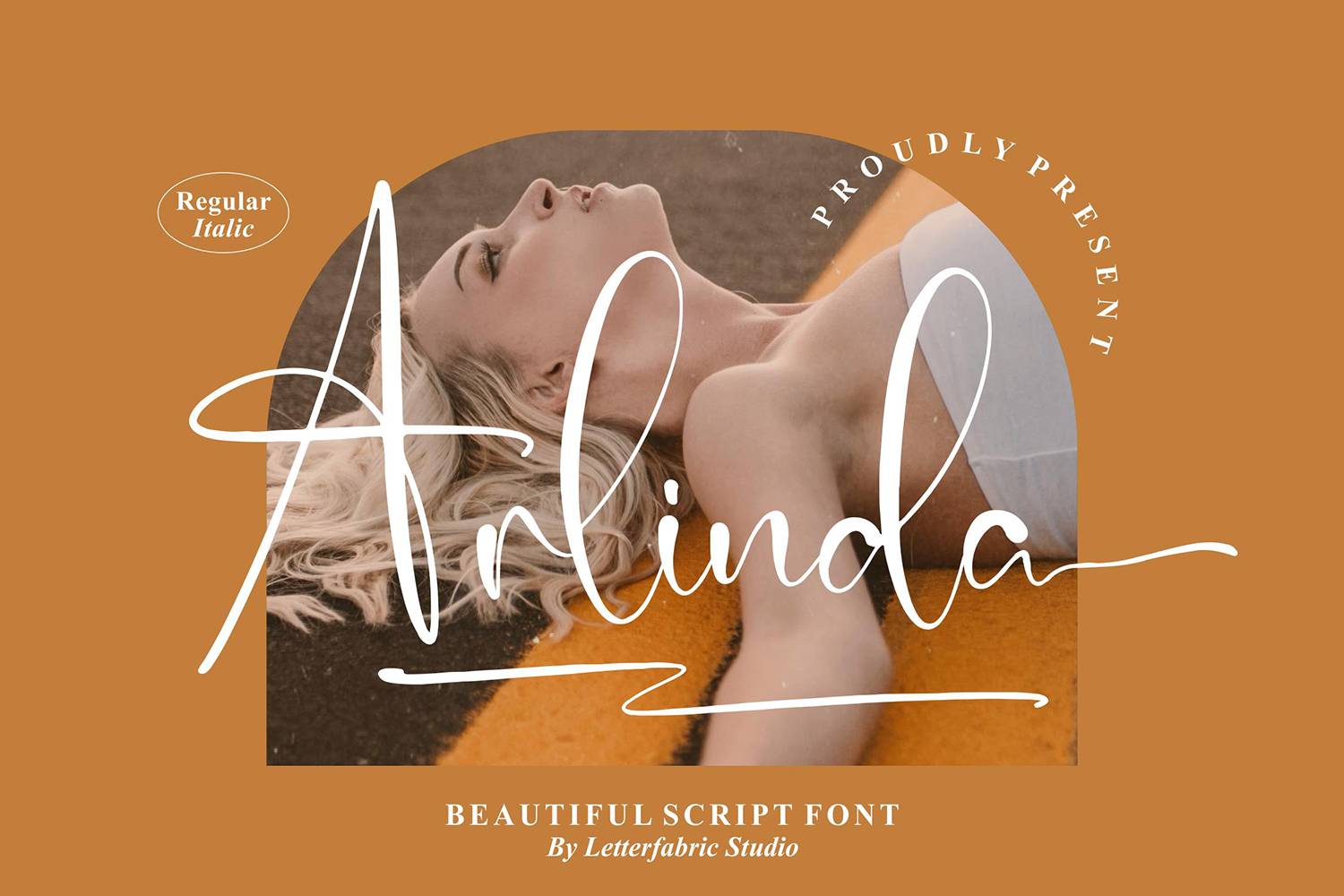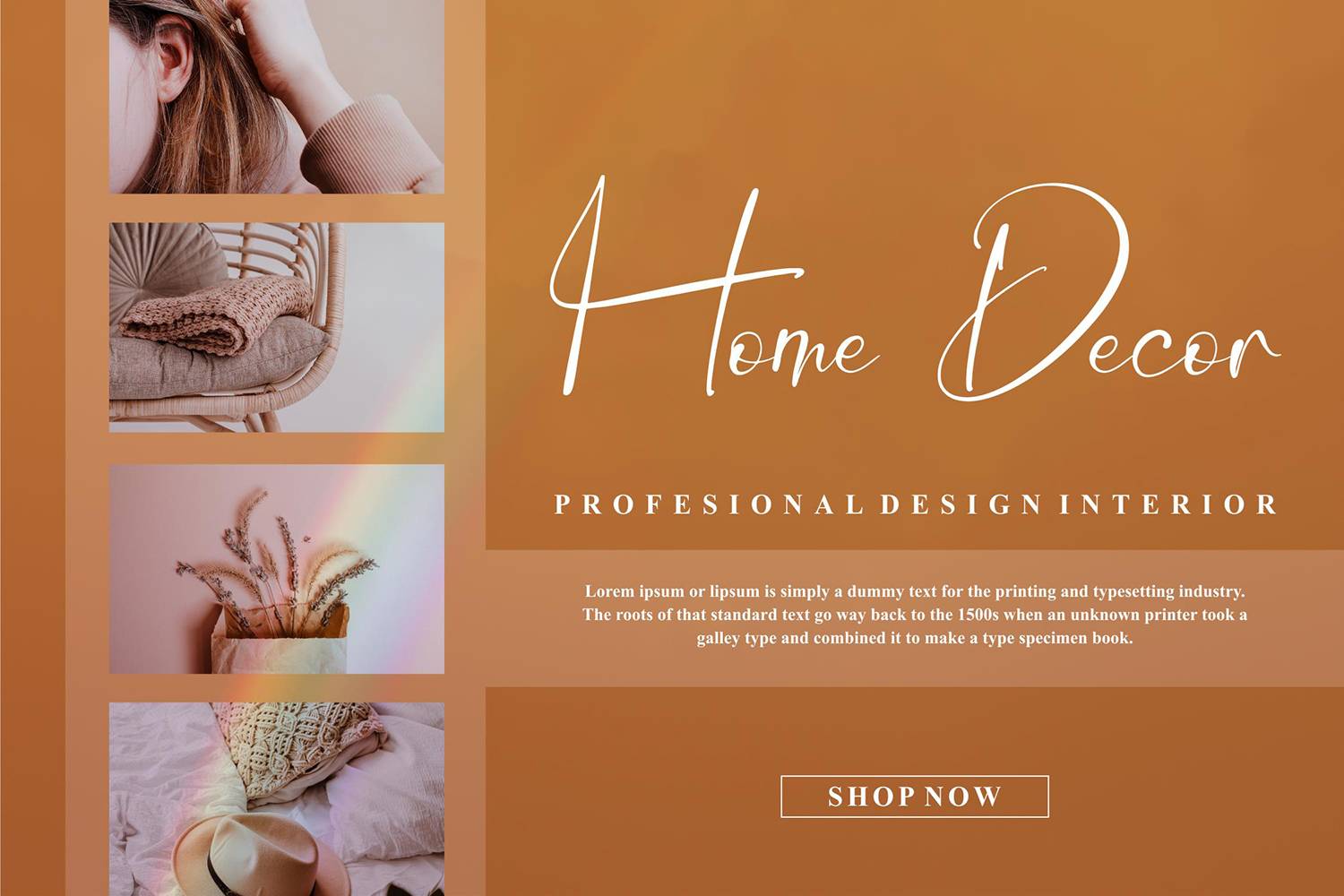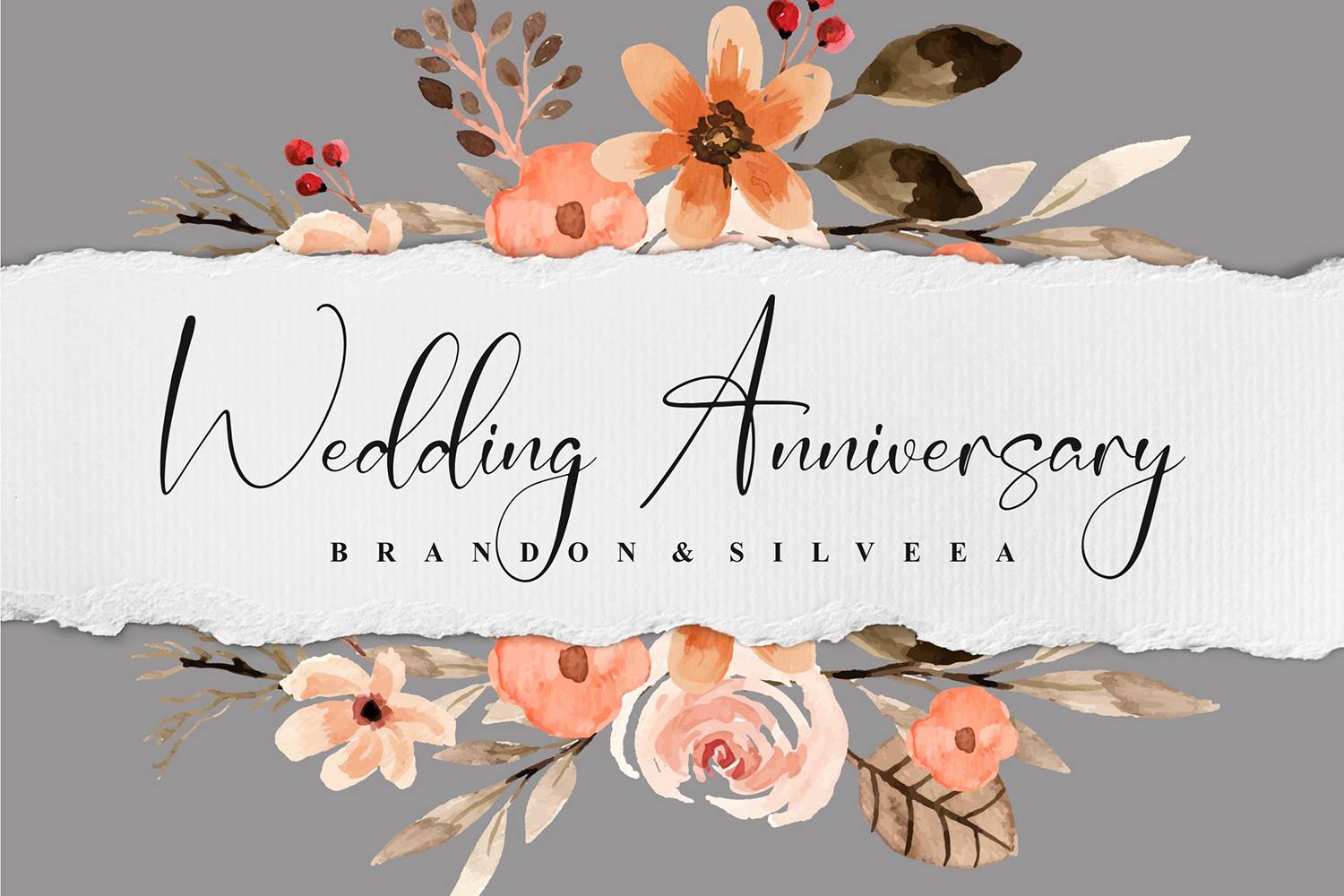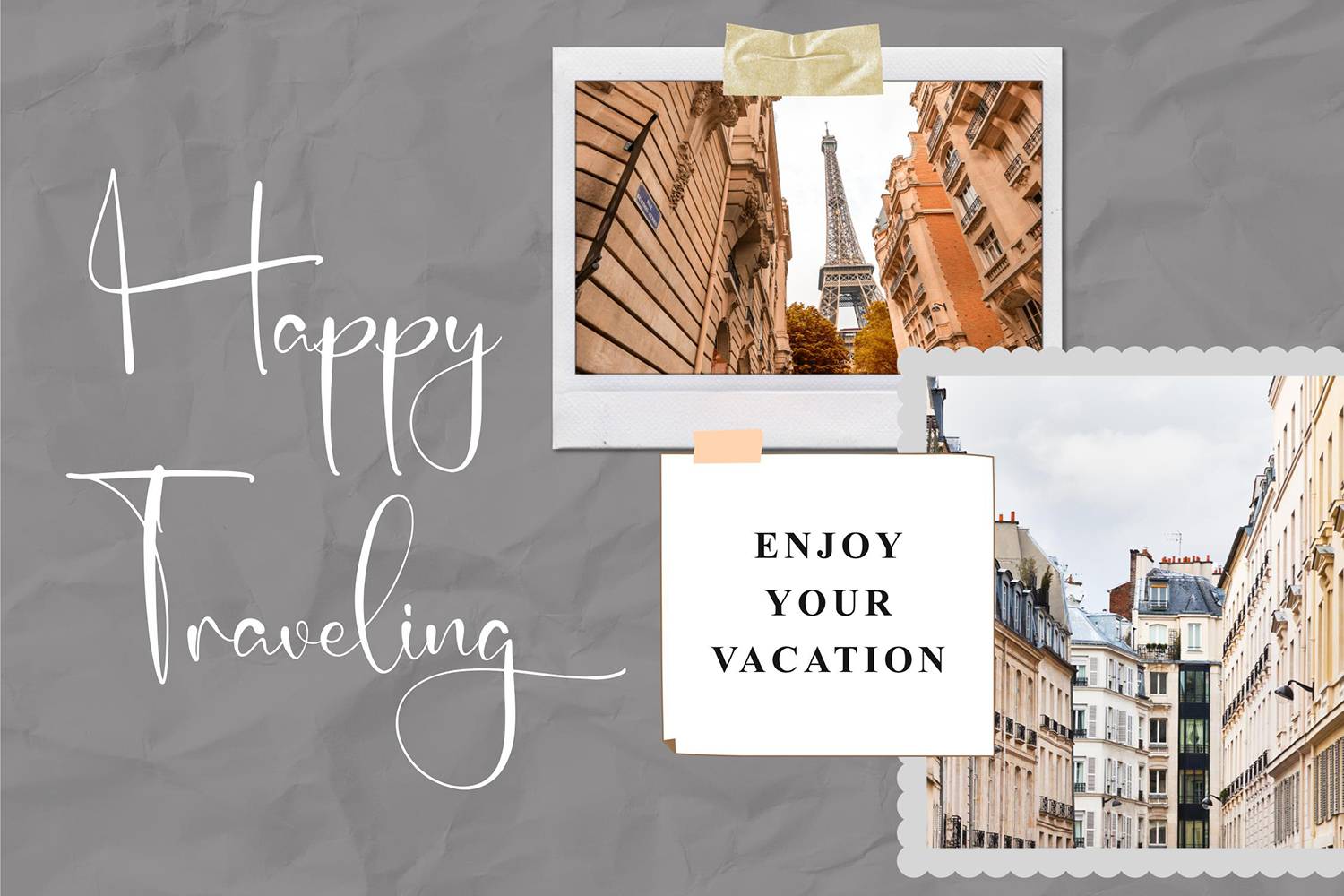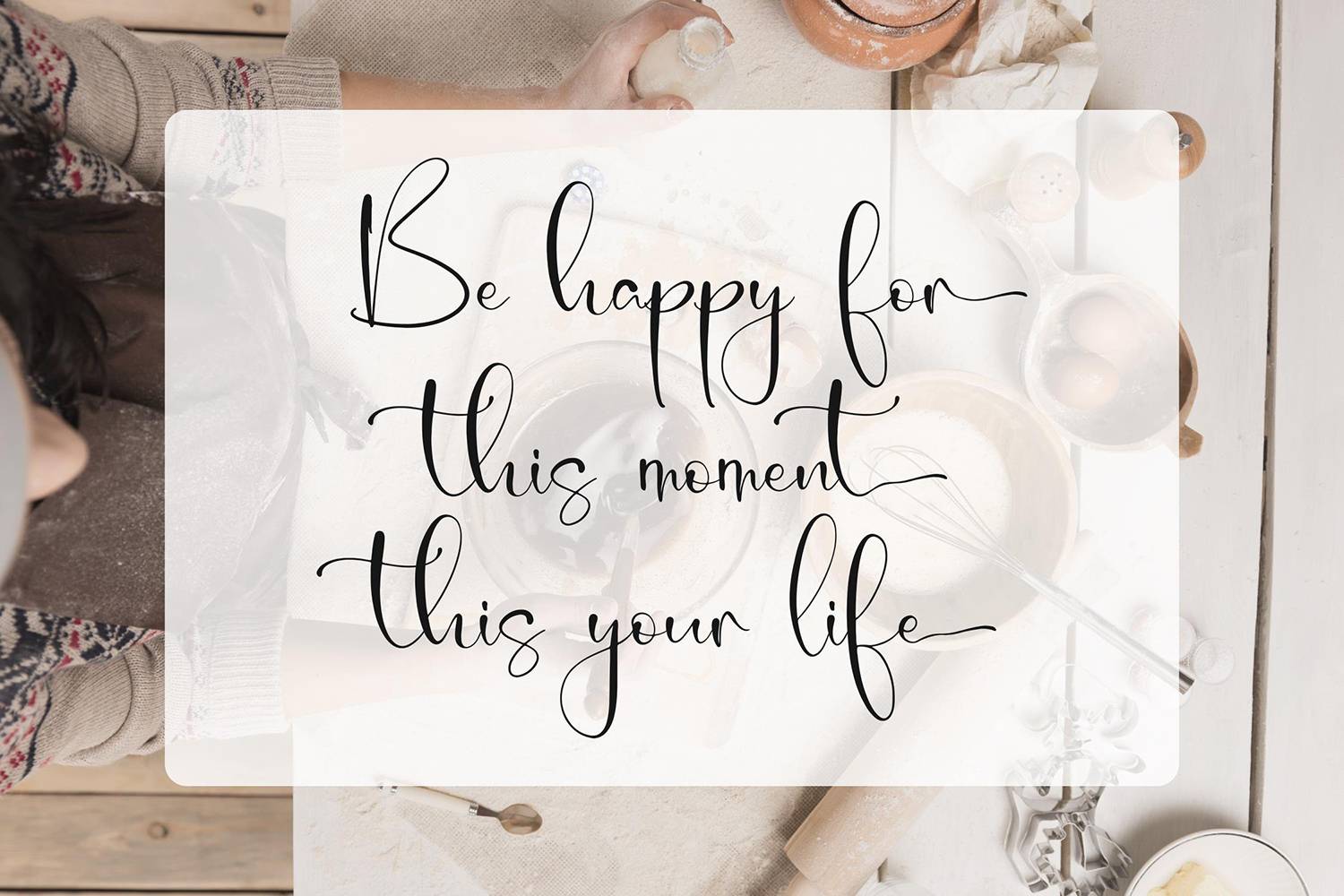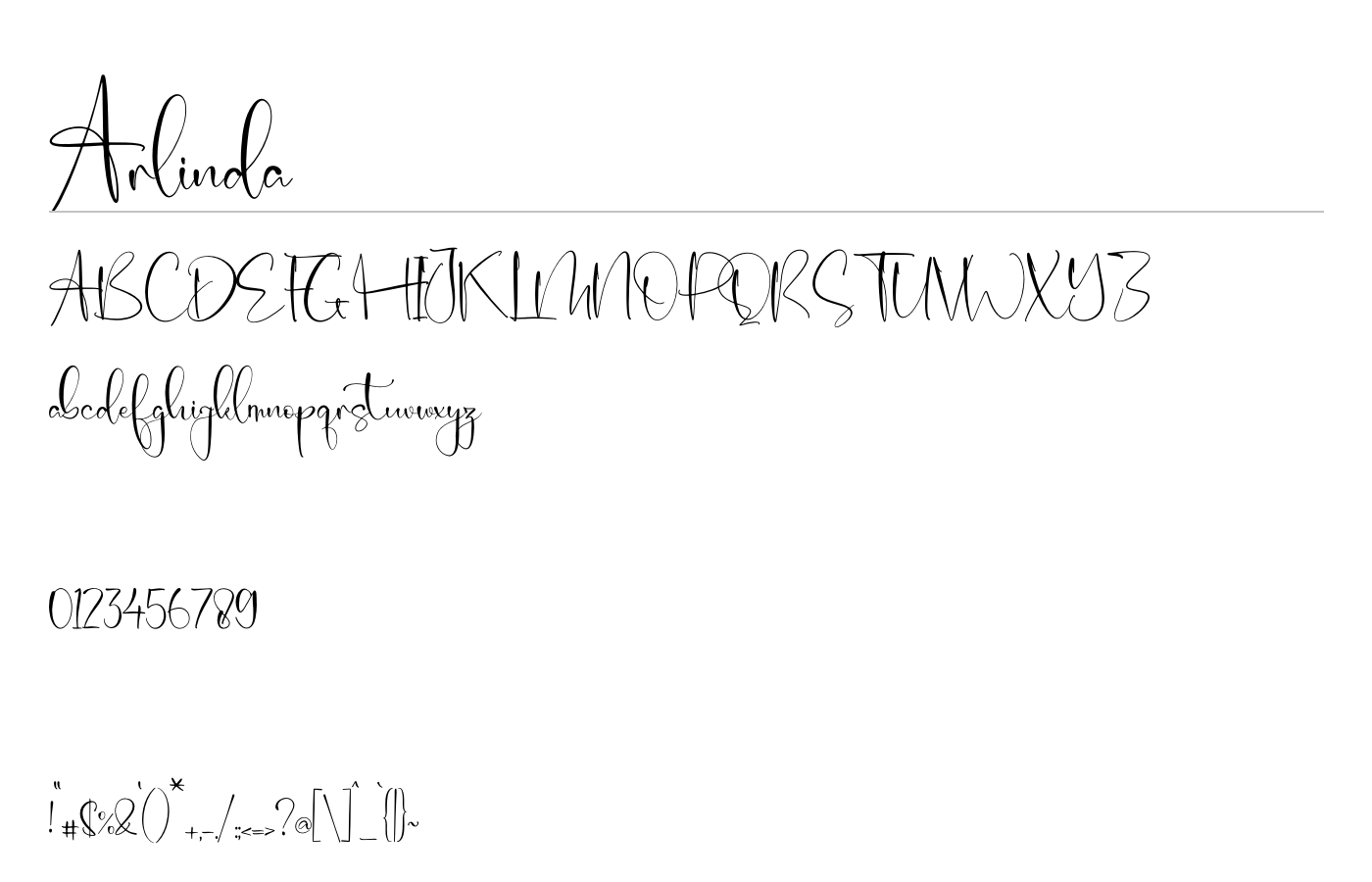
Arlinda is a delicate, thin script font with a whimsical, handwritten feel. Its airy, flowing letterforms and elegant, slightly irregular strokes make it perfect for feminine and artistic designs, such as wedding invitations, branding, and decorative headlines. This font adds a personal and charming touch wherever a soft, creative style is desired.
Arlinda Font